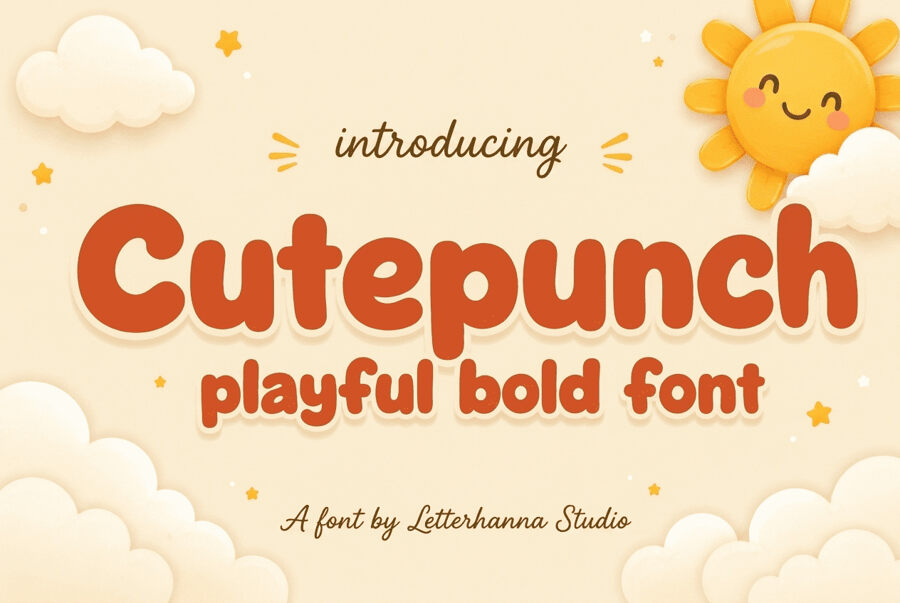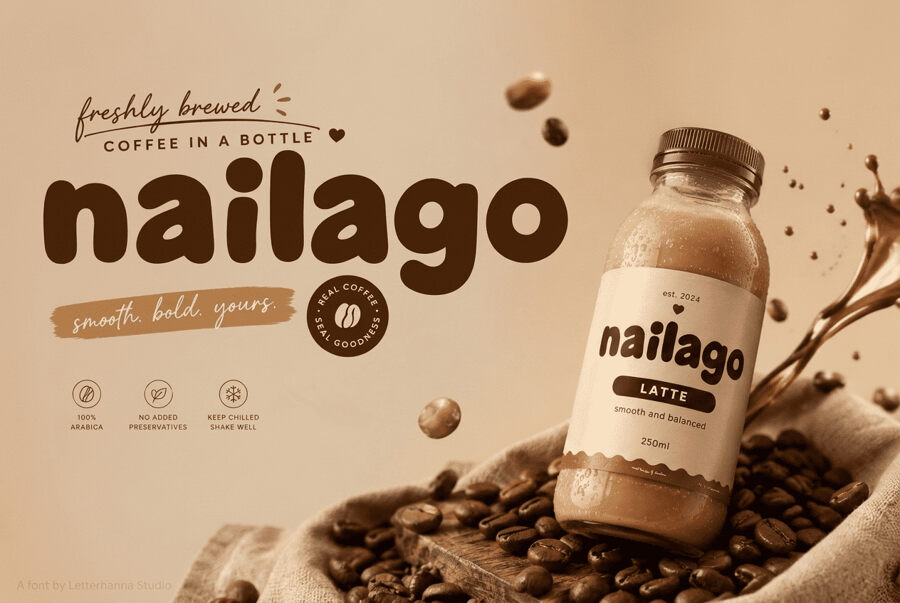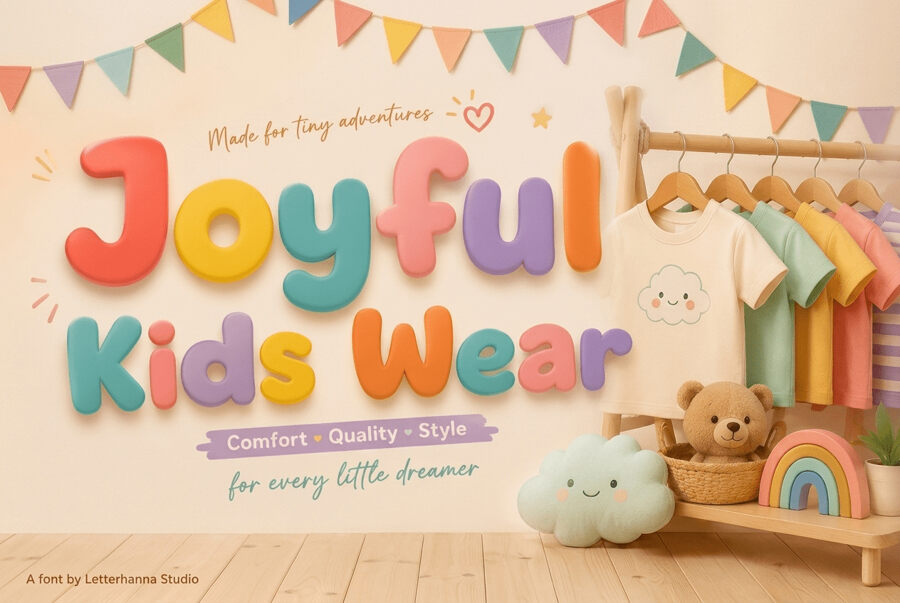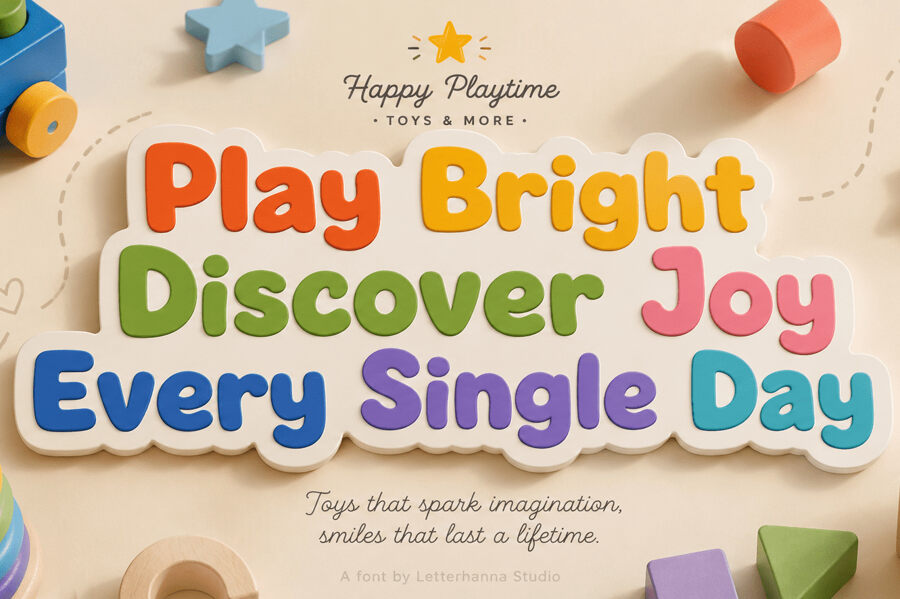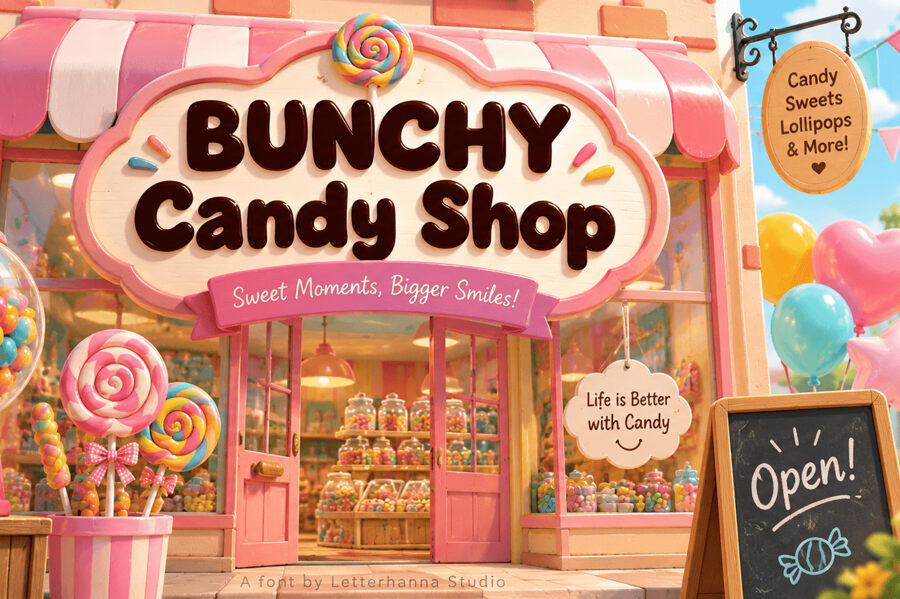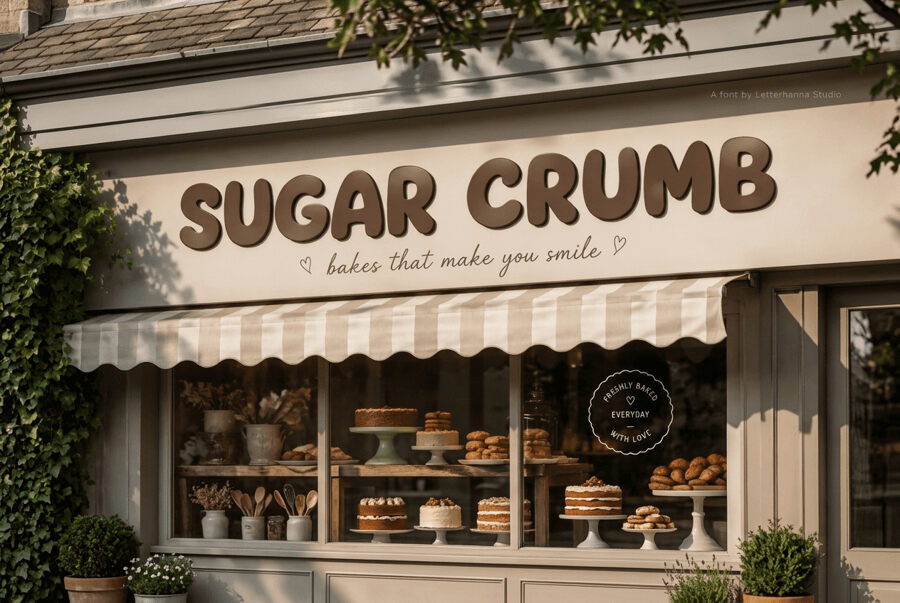
Cutepunch Font
Cutepunch is a vibrant font that combines playful charm with confidence. Its rounded, chunky letters are full of energy and personality. The inflated, generous design gives it a fun, bouncy feel, like a candy wrapper come to life.
With soft curves and consistent styling, Cutepunch is a bold font that demands attention, even in small sizes, making it perfect for adding a touch of personality to any design.